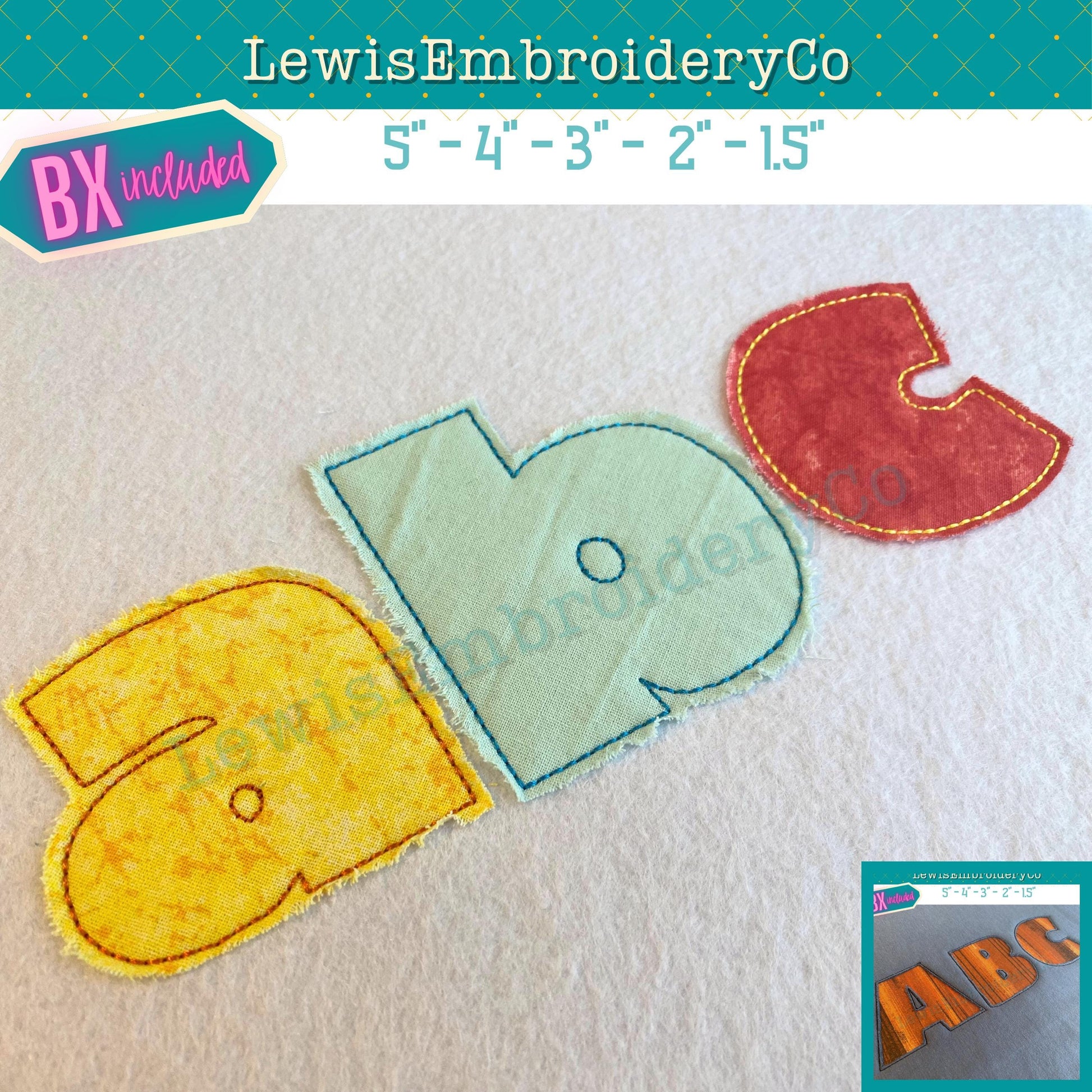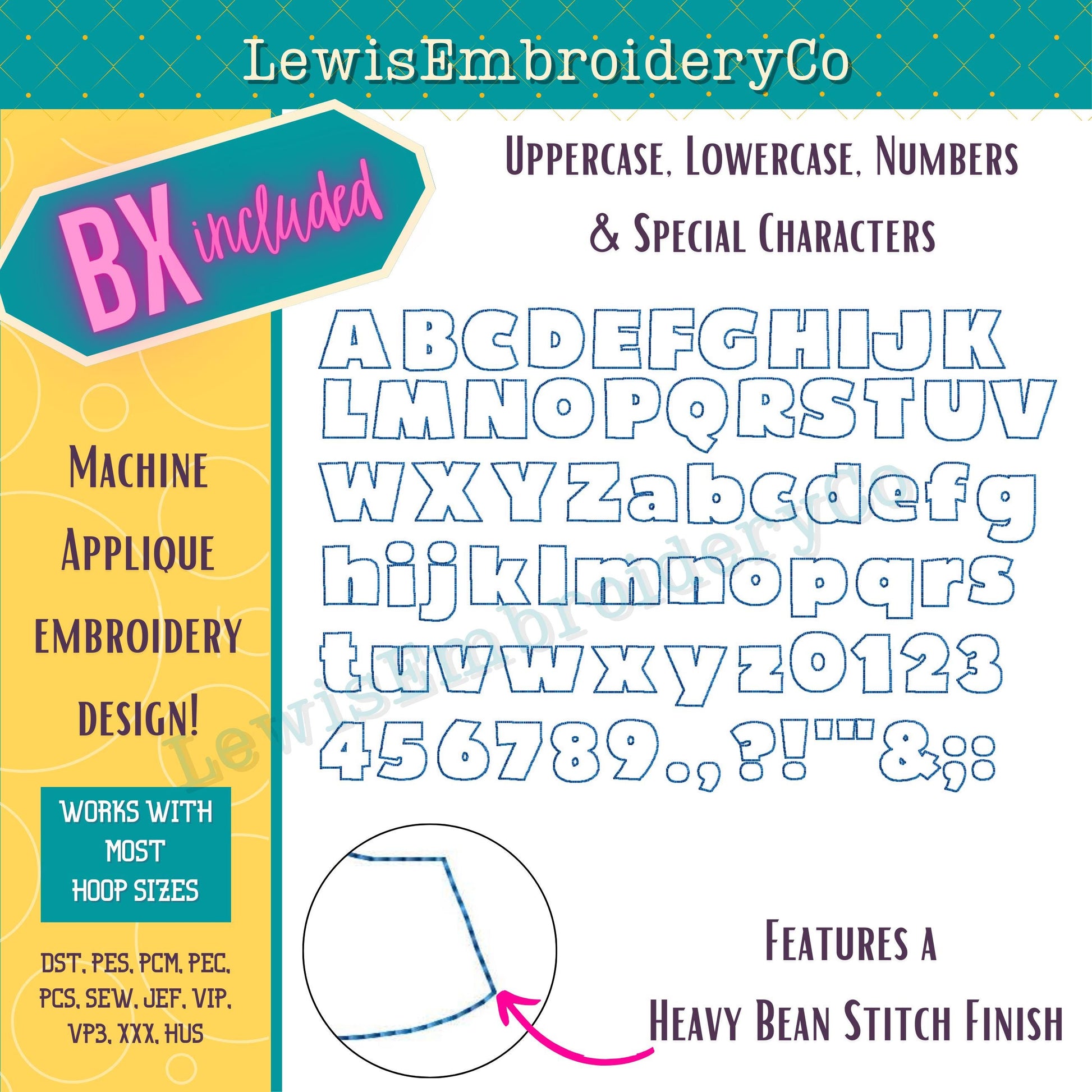
Raggy Applique, Block, Machine Embroidery BX Font - (PDF Tutorial Included)
Get quick and simple results with this adorable Raggy Edge Applique font. The "handmade" look is trending right now, so this is the perfect time to add this new type of product to your existing collections!
Full Raggy Edge Block Font
Measured at the tallest point of the uppercase “M”:
- 5"
- 4"
- 3"
- 2"
- 1.5"
Cute handmade look
Easy method will give you quick and professional results